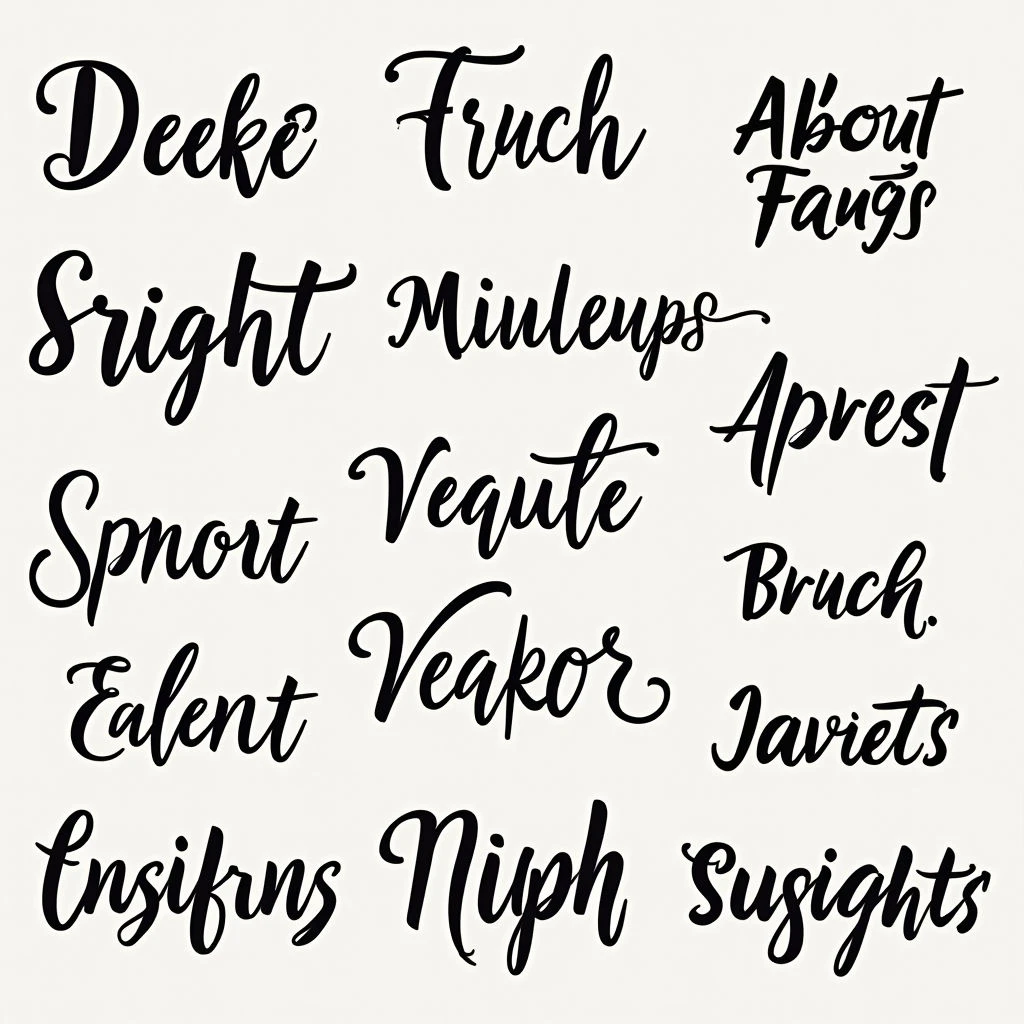
Explore stunning tattoo font ideas specifically curated for women. From delicate script to bold gothic styles, find the perfect typography for your meaningful ink.
Finding the Right Font for Female Tattoos
Introduction
Finding the right font can elevate a tattoo from good to exceptional. For women seeking personalized ink, font choice is paramount.
Font Styles for Female Designs
Delicate Script Fonts
These are a classic choice for conveying elegance and femininity. Think flowing cursive or calligraphic styles that mimic handwriting. Ideal for names, dates, quotes about love, or inspirational phrases. They work well with floral imagery or smaller, more subtle designs.
Vintage & Retro Fonts
Fonts evoking past erasÔÇöthink 1920s Art Deco or Victorian scriptÔÇöadd a touch of timeless charm. These fonts pair wonderfully with vintage-inspired illustrations or nautical themes. They create an air of mystery and sophistication.
Minimalist & Modern Sans-Serif Fonts
For a clean, contemporary look, opt for minimalist sans-serif fonts. These are highly readable and offer a modern aesthetic that complements geometric designs or simple phrases.
Bold Gothic/Blackletter Fonts
These fonts make a statement! While traditionally masculine, they can be beautifully adapted for women who embrace darker aesthetics ÔÇô perfect for expressions of strength, rebellion, or individuality. Consider them with rose imagery or dark silhouettes.
Choosing the Right Size & Placement
Font size and placement significantly impact readability and overall design. Smaller fonts require greater detail from the artist to ensure legibility over time. Consider font weight too ÔÇô bolder fonts stand out more than lighter ones.